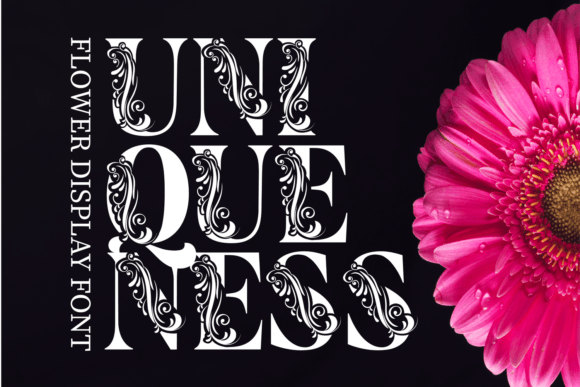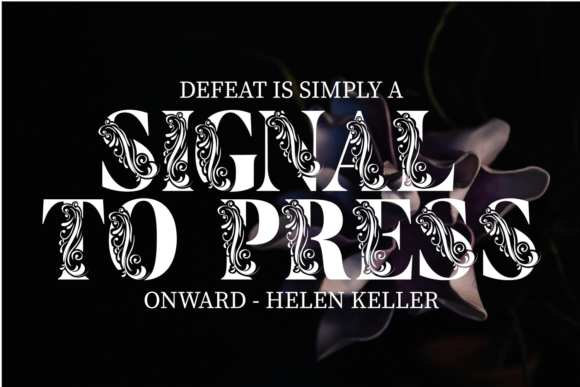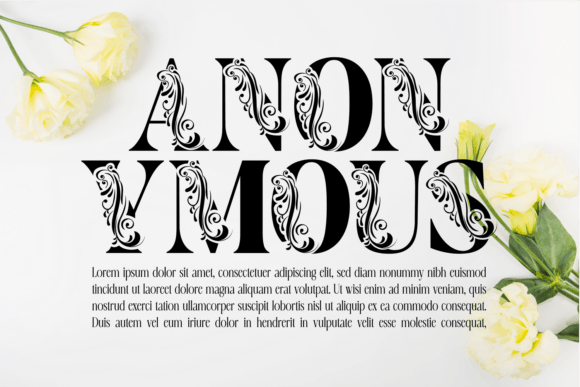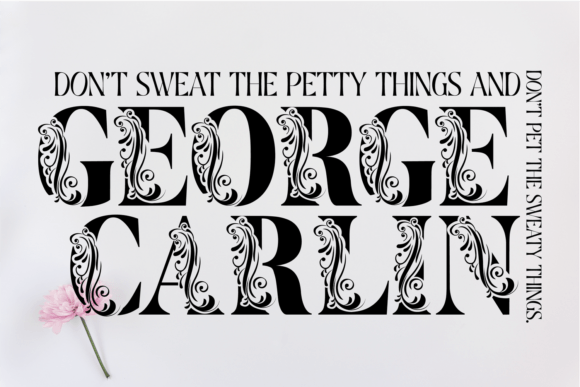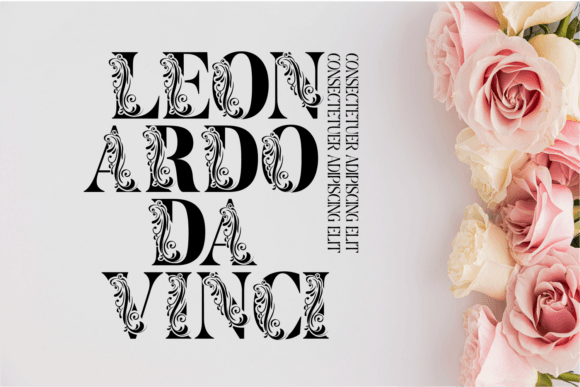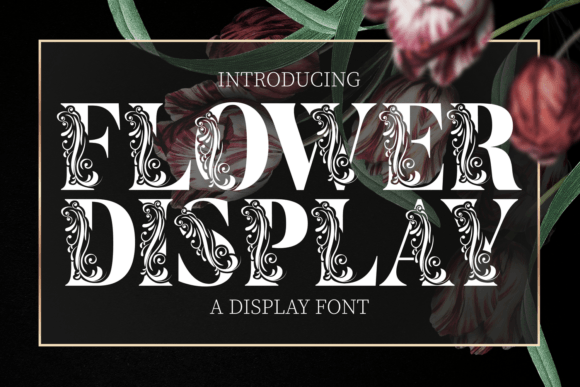
Introducing Flower Display Font: Elevate Your Designs with Delicate Luxury
Are you a designer or crafter looking for a typeface that exudes elegance and sophistication? Look no further than Flower Display Font, an incredibly stylish and aesthetically pleasing decorative font that’s perfect for adding a touch of luxury to your designs. With its delicate decorative elements, Flower Display Font is ideal for a wide range of applications, from cosmetics packaging to feminine social media posts, mental health stickers, and more.
The Perfect Typeface for Feminine and Luxurious Designs
Flower Display Font is designed to add a touch of whimsy and romance to your designs. Its intricate and delicate elements make it perfect for creating visually stunning and feminine designs that capture the essence of luxury. Whether you’re working on a cosmetics brand, a fashion label, or a lifestyle blog, Flower Display Font is the perfect choice for adding a touch of elegance and sophistication.
Key Features of Flower Display Font
- Delicate Decorative Elements: Flower Display Font features intricate and delicate decorative elements that add a touch of luxury to your designs.
- Feminine and Elegant: The font’s feminine and elegant design makes it perfect for cosmetics packaging, social media posts, and other applications where a touch of sophistication is required.
- Highly Versatile: Flower Display Font can be used for a wide range of applications, from digital designs to print materials.
- Easily Customizable: The font is highly customizable, allowing you to adjust the size, color, and style to suit your design needs.
Use Cases for Flower Display Font
Flower Display Font is perfect for a wide range of applications, including:
- Cosmetics Packaging: Add a touch of luxury to your cosmetics packaging with Flower Display Font.
- Feminine Social Media Posts: Create visually stunning social media posts with Flower Display Font that capture the essence of femininity and elegance.
- Mental Health Stickers: Use Flower Display Font to create mental health stickers that promote positivity and self-care.
- Luxury Brands: Flower Display Font is perfect for luxury brands looking to add a touch of elegance and sophistication to their designs.
Why Choose Flower Display Font?
With so many fonts available, why choose Flower Display Font? Here are just a few reasons:
- Unique and Exclusive: Flower Display Font is a unique and exclusive typeface that’s sure to make your designs stand out.
- High-Quality Design: The font is designed with high-quality and precision, ensuring that your designs look professional and polished.
- Easily Readable: Despite its decorative elements, Flower Display Font is easily readable, making it perfect for digital and print designs.
Tips for Using Flower Display Font
Here are a few tips for using Flower Display Font:
- Use it Sparingly: Use Flower Display Font sparingly to add a touch of luxury to your designs.
- Pair it with Other Fonts: Pair Flower Display Font with other fonts to create a unique and visually stunning design.
Flower Display Font is an incredibly stylish and aesthetically pleasing decorative font that’s perfect for designers and crafters looking to add a touch of luxury to their designs. With its delicate decorative elements, feminine and elegant design, and highly versatile nature, Flower Display Font is the perfect choice for a wide range of applications. Whether you’re working on cosmetics packaging, social media posts, or mental health stickers, Flower Display Font is sure to elevate your designs and make them stand out.